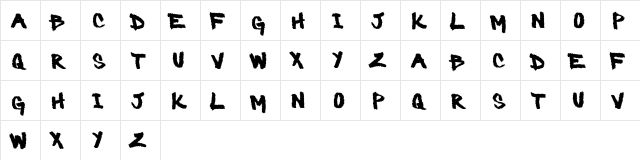
Barbaric Regular Font Preview
Barbaric Regular
Barbaric Regular Font Details
| Foundry | Fonts by GKDN |
| Designer | Chris Vile |
Design Context for Barbaric Typeface
Barbaric is a composed and adaptable typeface that performs quietly and consistently across a wide range of design contexts.